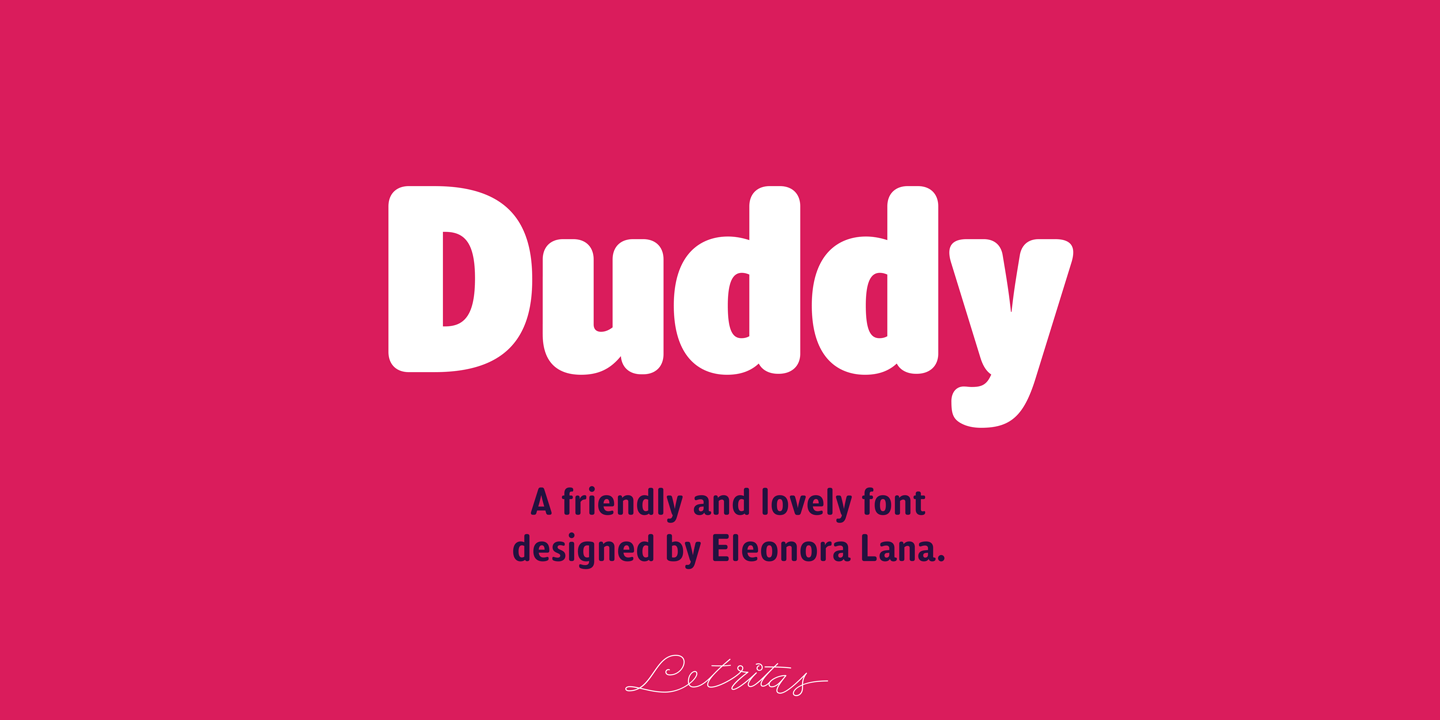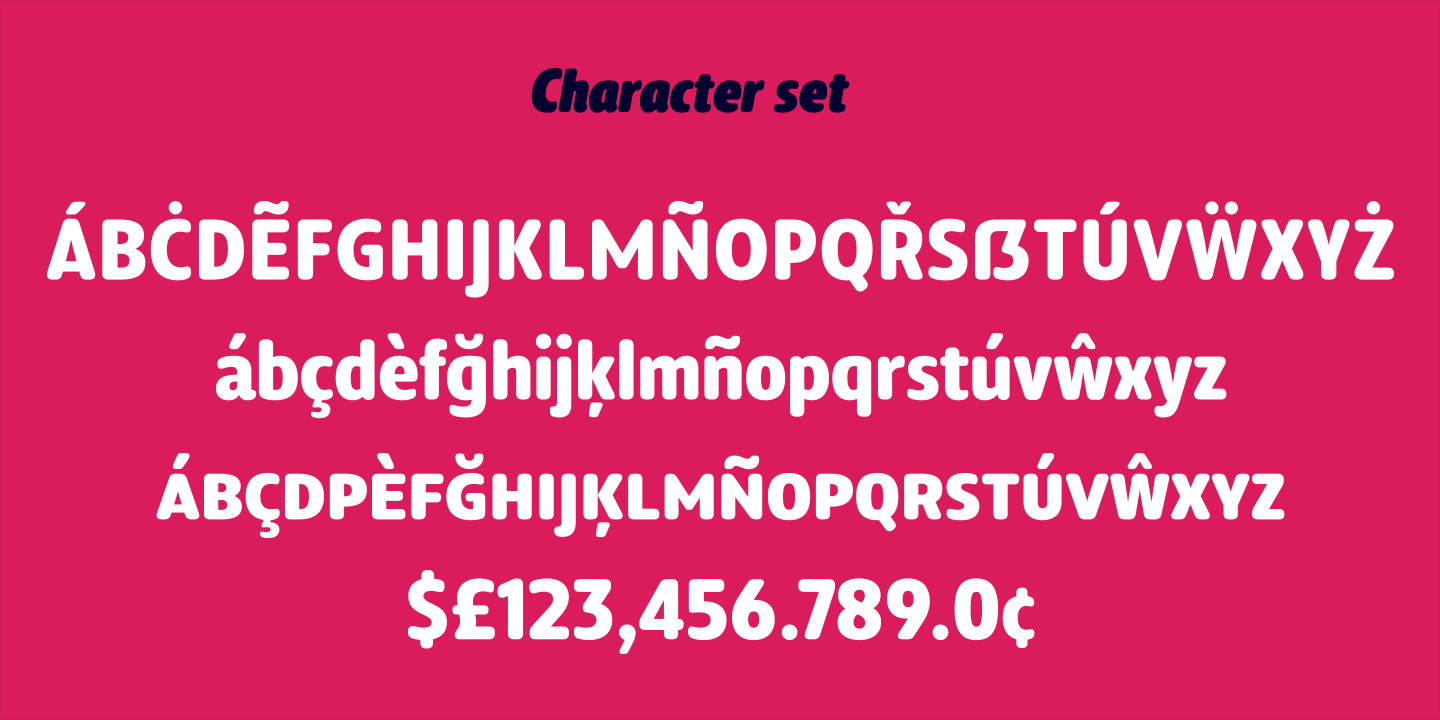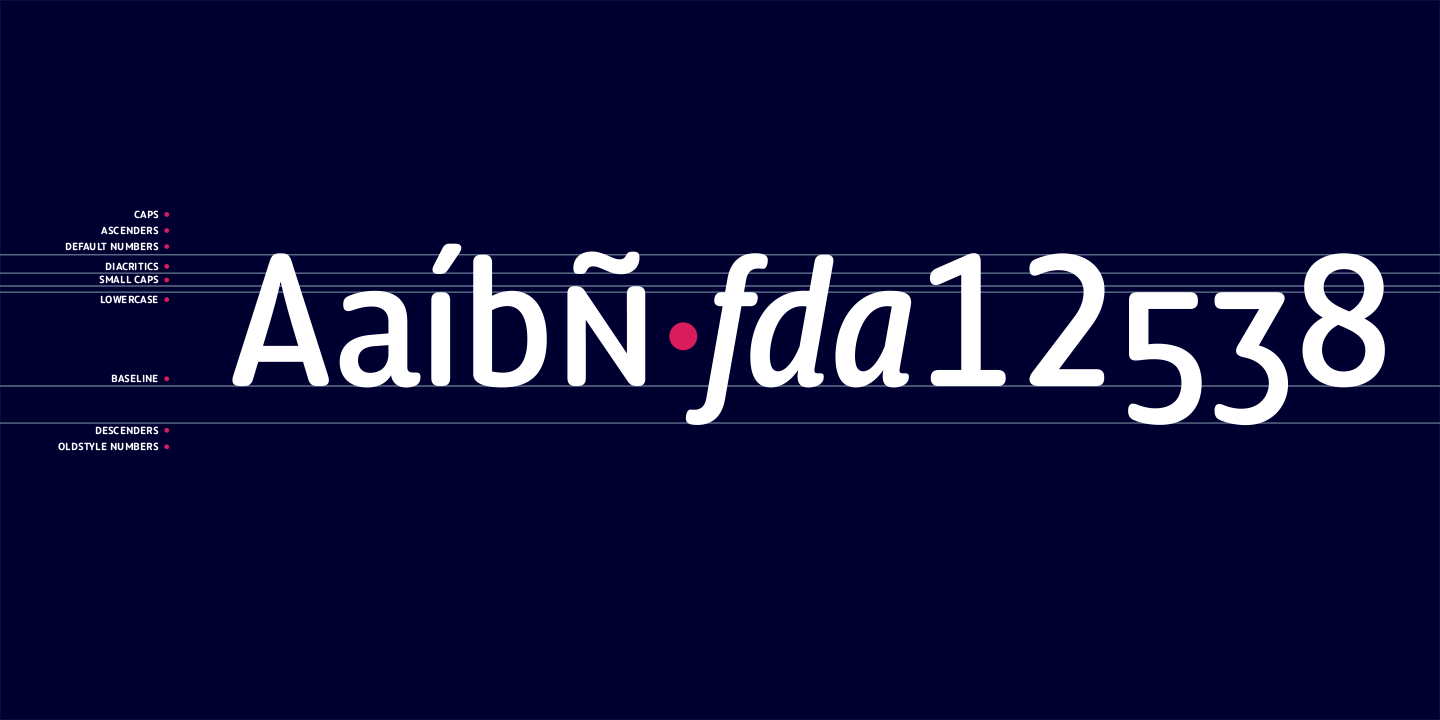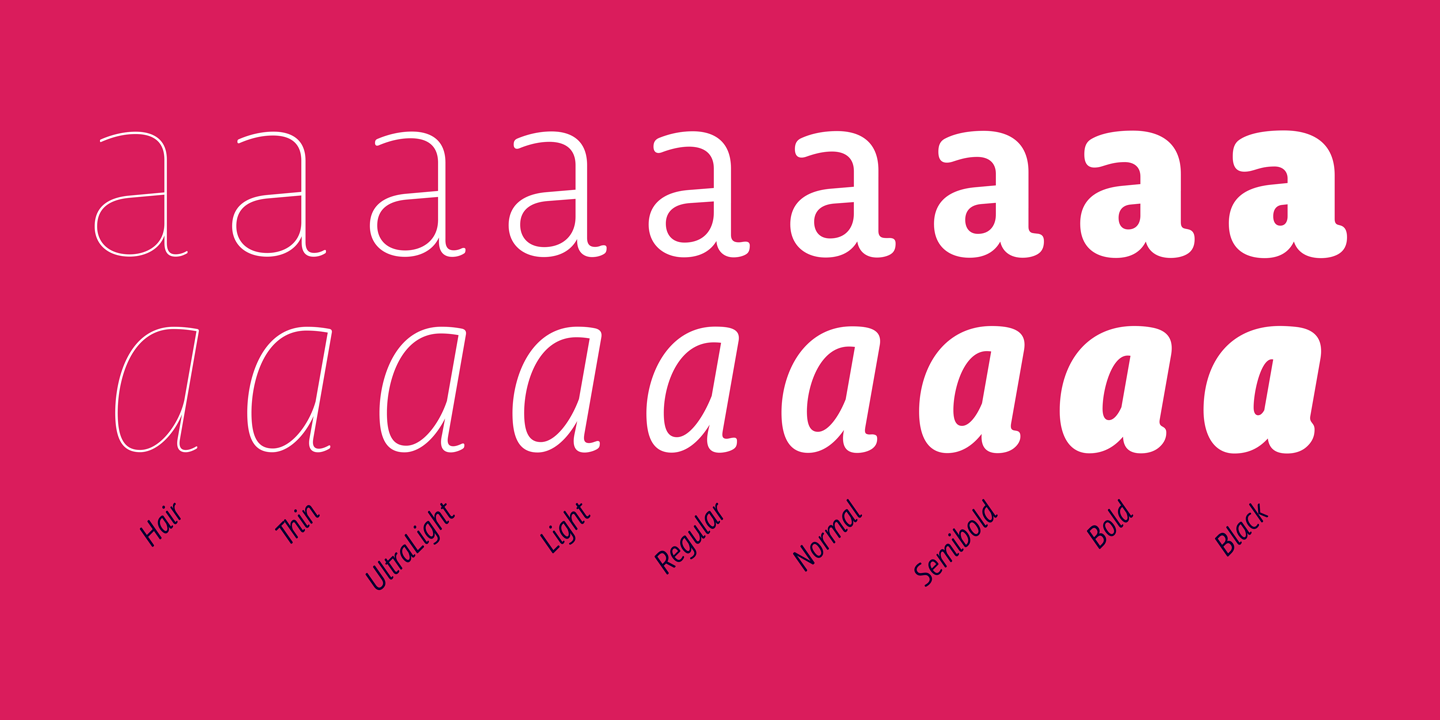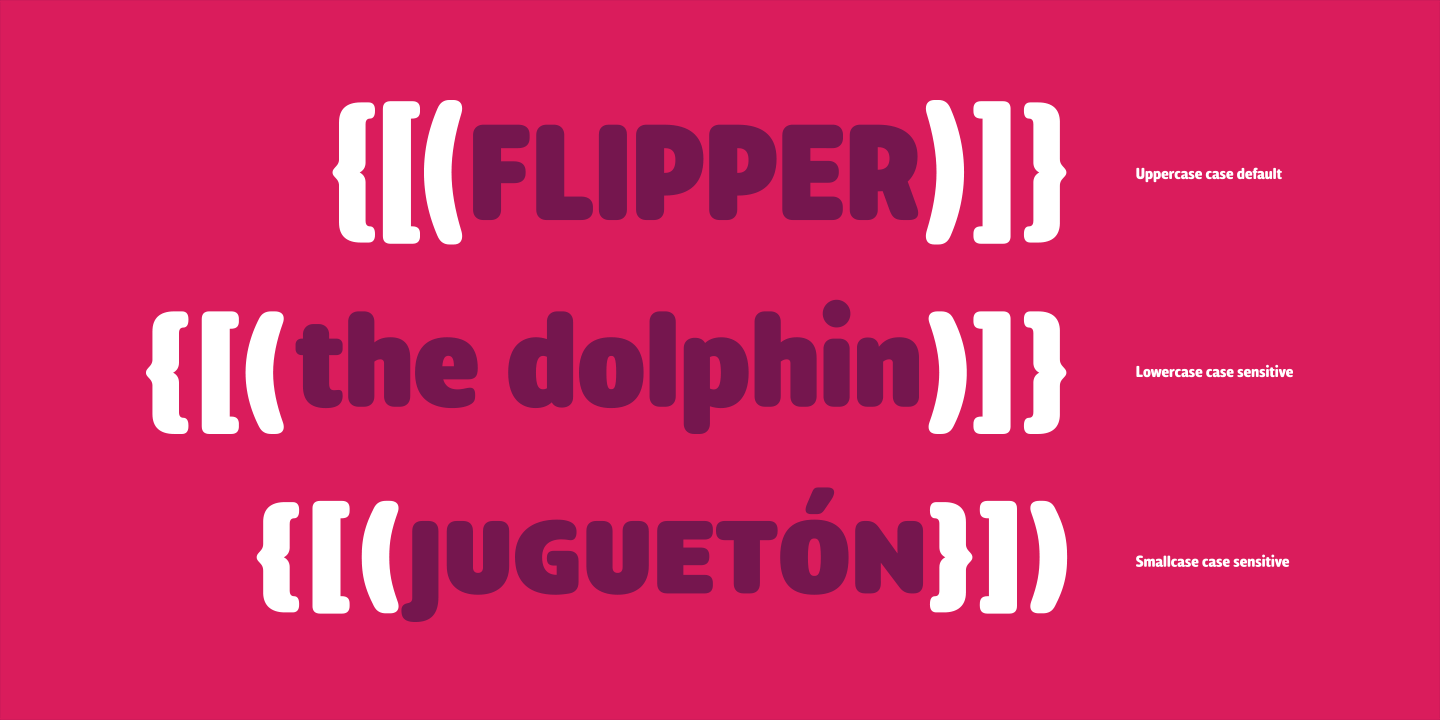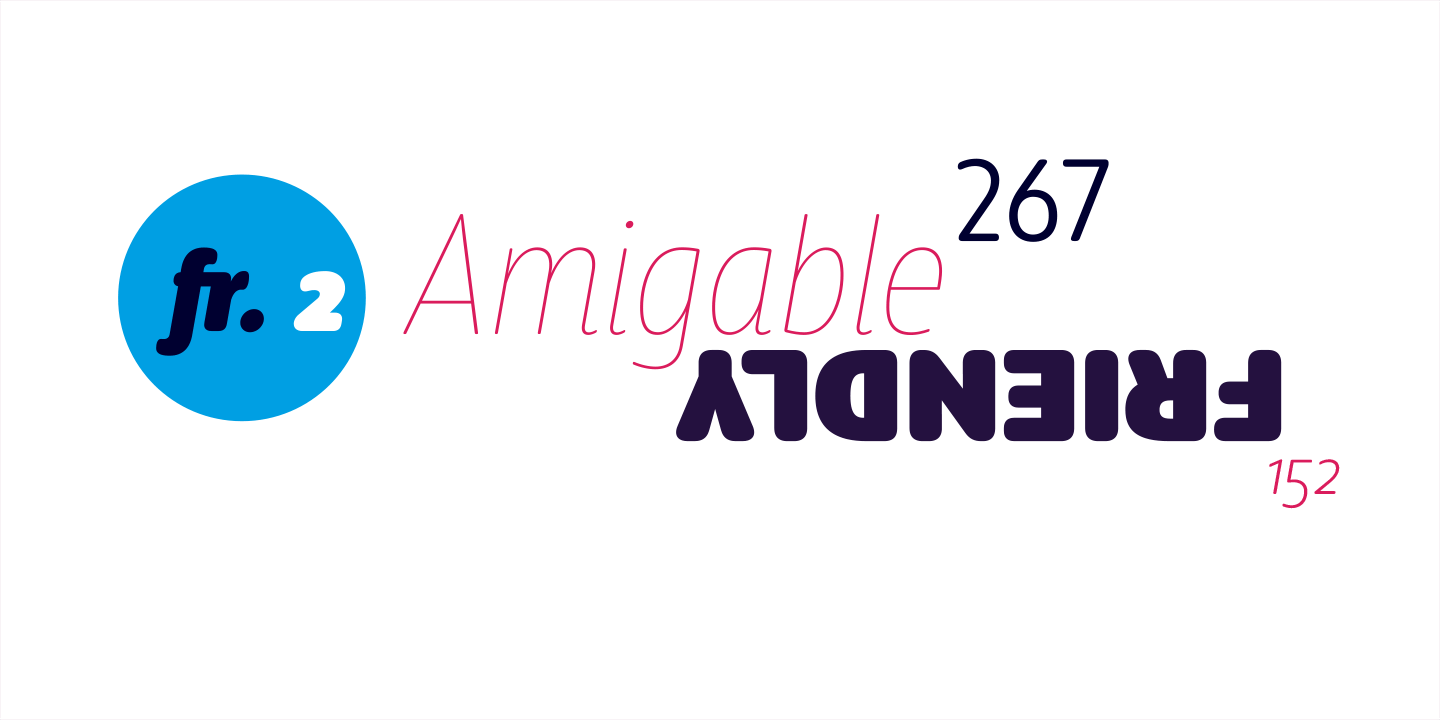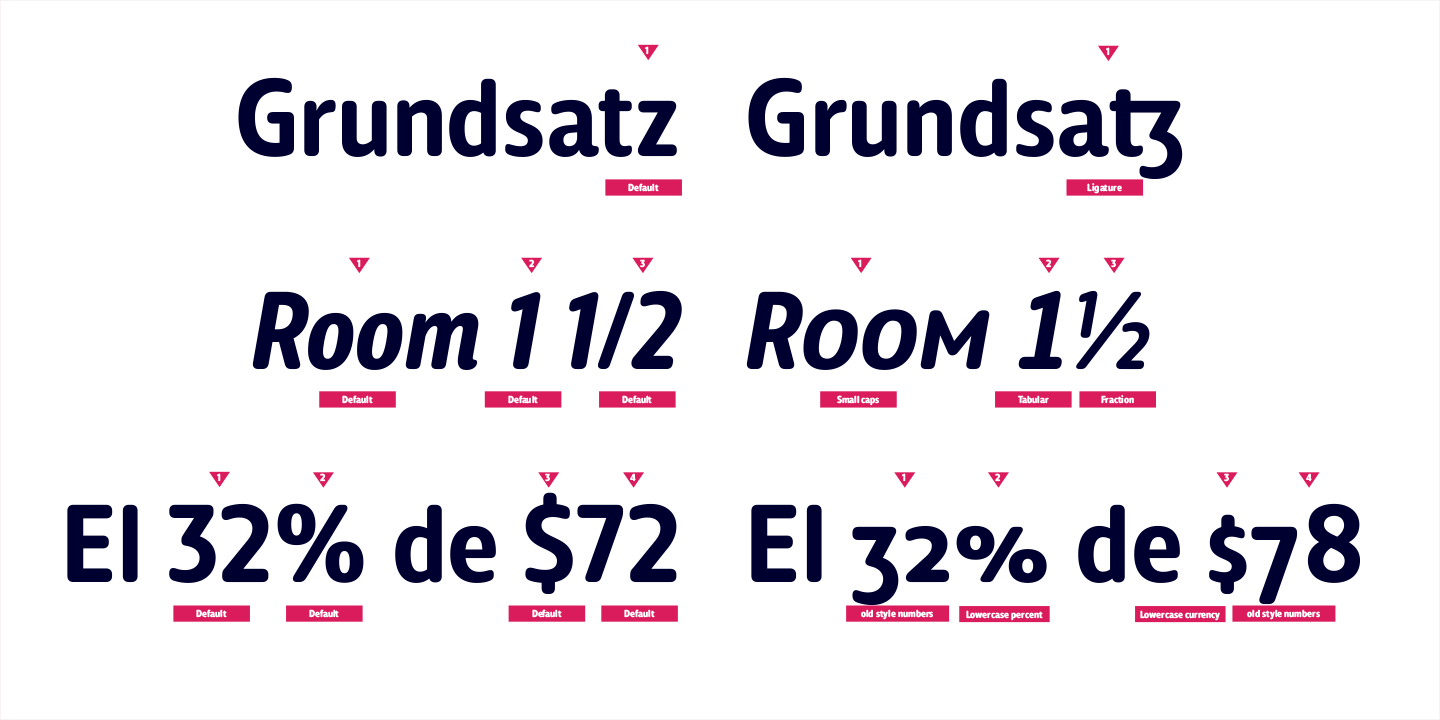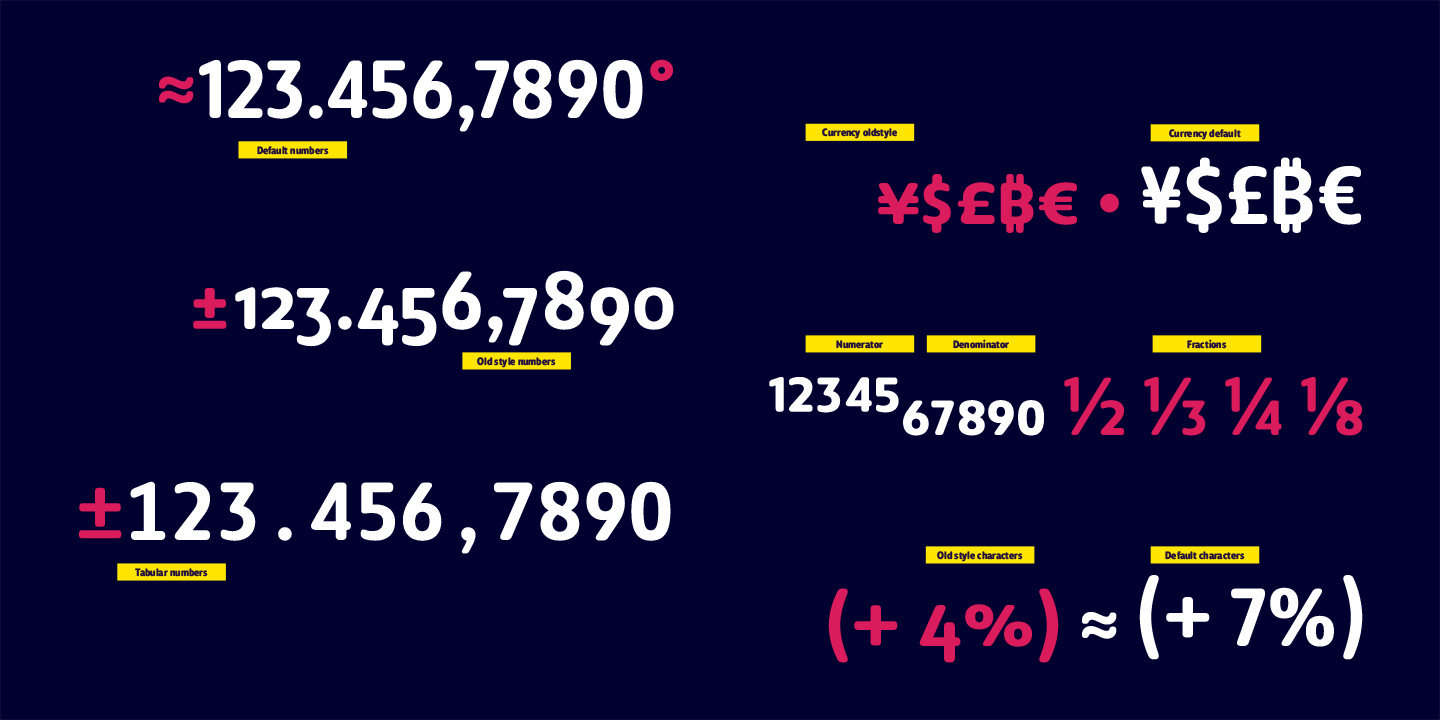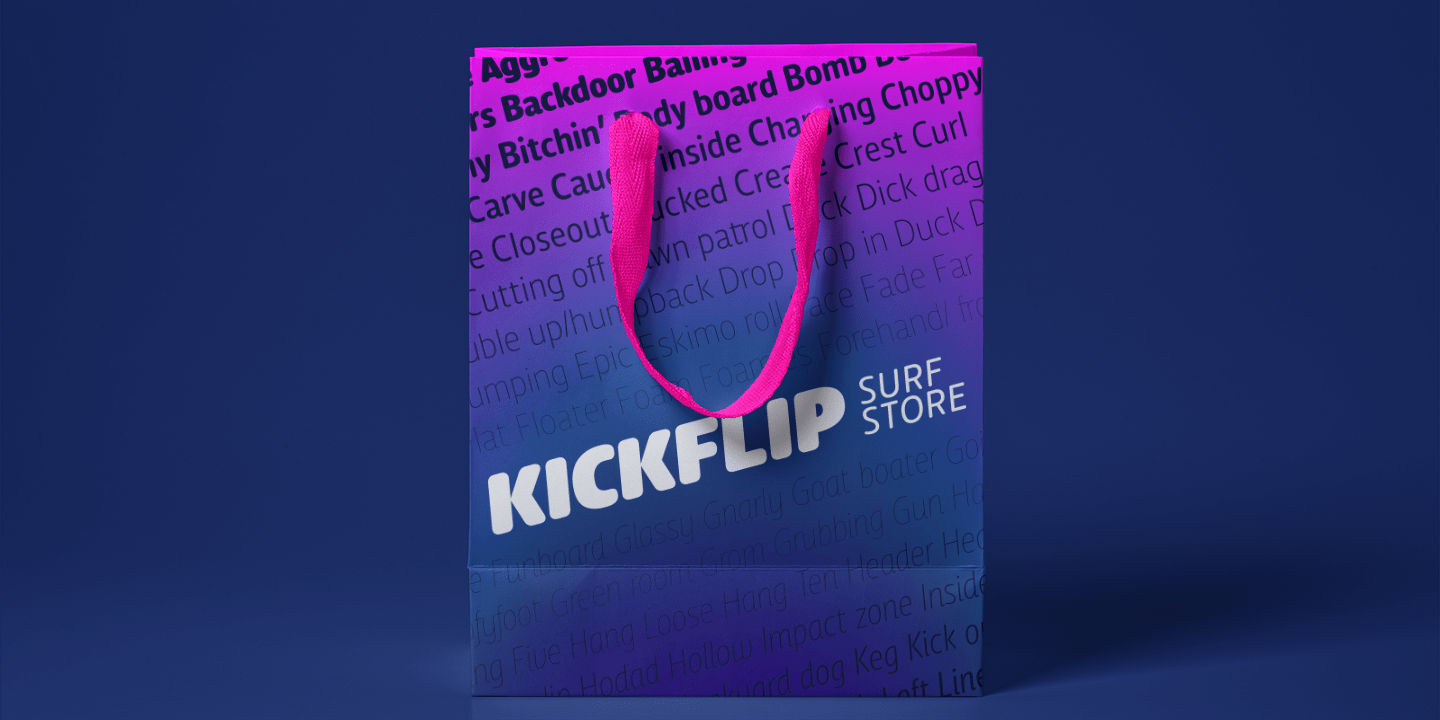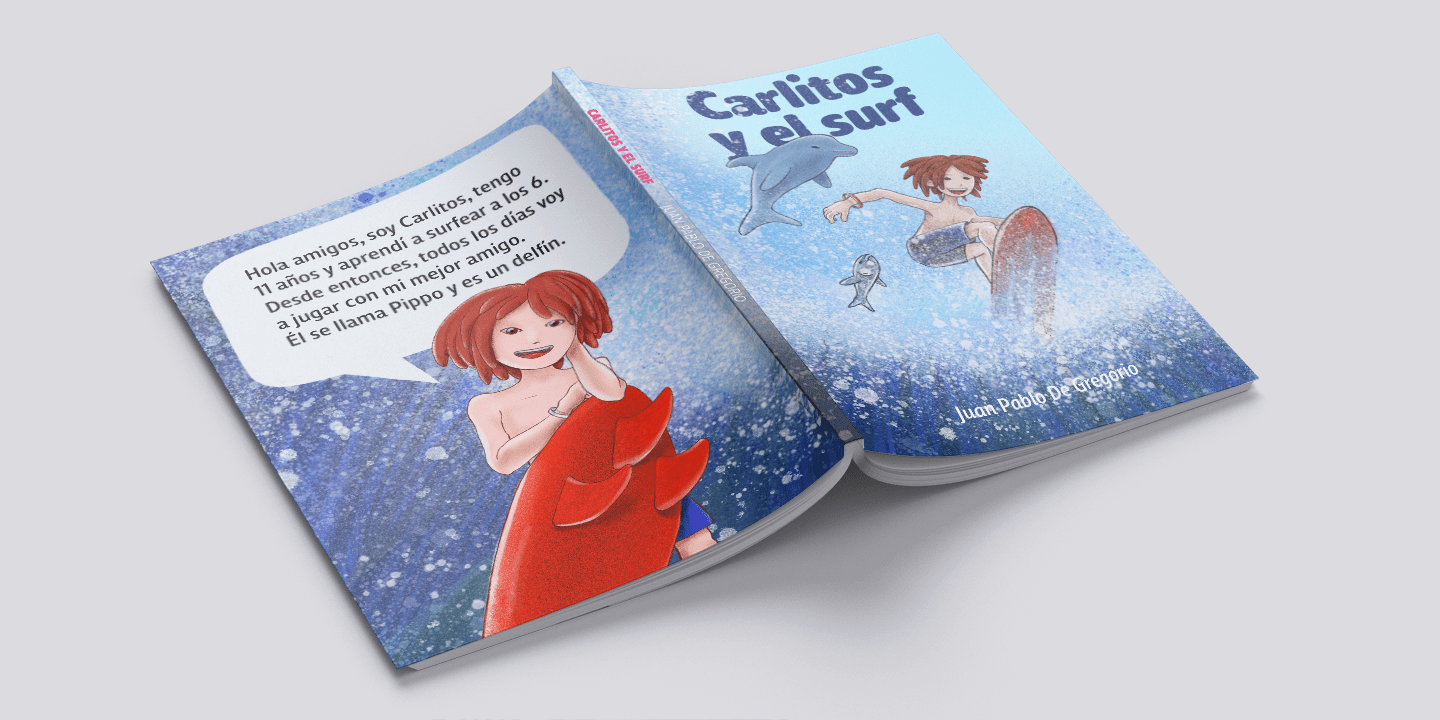
Duddy
Buy NowDuddy is a “friendly” sans-serif typography designed by Eleonora Lana and the Letritas team. The shape of Duddy was created based on sketches that looked after carrying the concept of kindness as far as possible, keeping always in mind the readability and functionality of the font.
In the stage of brainstorming, the team started listing things that were friendly to the touch or sight, such as a candy gum, or marshmallow, to become acquainted with the intended goal.
Although slowly, as the letters were being created, the objects associated with the forms were not satisfactory, since when forming words a special personality of its own appeared.
By reconceptualizing everything, the personality of the letter the team wanted to work with had to be redefined.
Thus it went from "caramel" to "teddy bear", from "teddy bear" to "puppy" and from "puppy" to "dolphin". And Duddy is the perfect name for a dolphin. Duddy was a sound idea: friendly, intelligent, social. Once the concept was nailed, the design of graceful and “soft” shapes started. Almost chewable, almost huggable, as if composing words was a game.
Duddy has a slanted version with "real italics". These italics are slightly more condensed than the regular version, in order to give it a different text texture.
The typeface has 9 weights, ranging from “thin” to “heavy”, and two versions: "regular" and "italic". Its 18 files contain 729 characters with ligatures, alternates, small caps, oldstyle and tabular numbers, fractions, case sensitive, and unicase figures. It supports 219 Latin-based languages, spanning through 212 different countries.